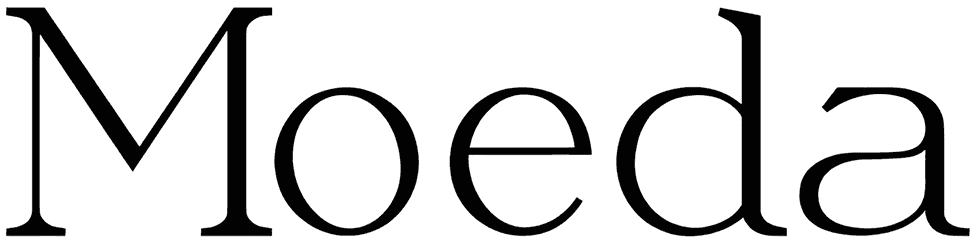
Moeda Font
In the company of clarity and standard design of serif fonts, give a reliable identity to your typography and capture the attention of all tastes. Moeda came closer to showing off its dominance in developing posters, headlines, fashion, music covers, and other printed text.